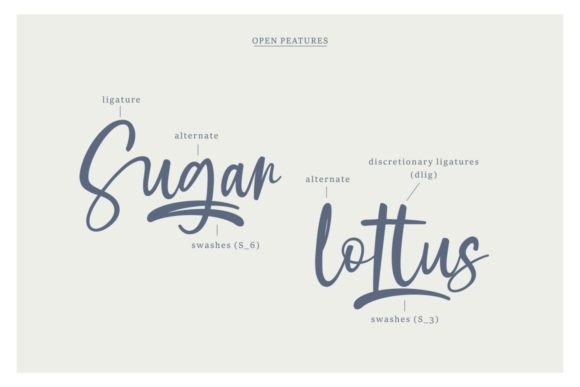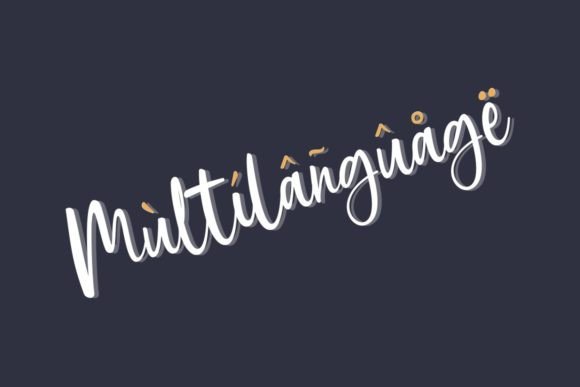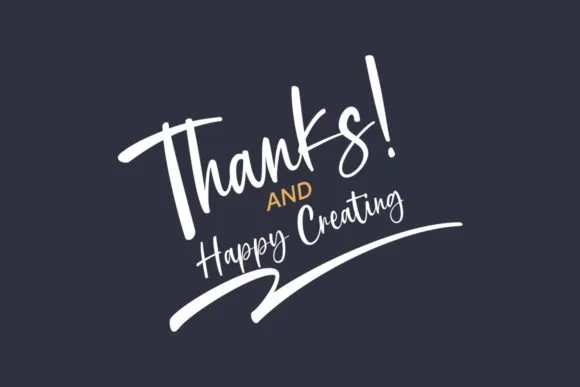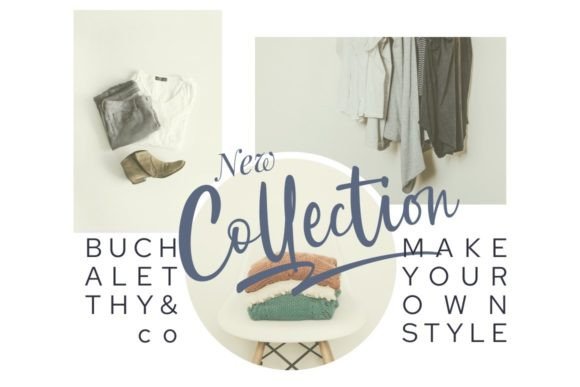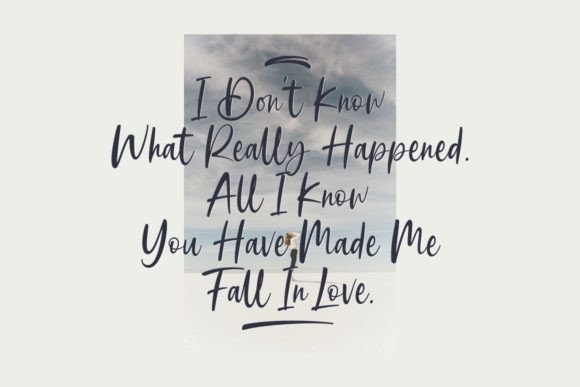
Bitter Sweet Font
About Bitter Sweet Font
**”Bitter Sweet”** is an enchanting handwritten font that holds the potential to elevate your designs into something beautiful and truly unique. This versatile font can be used in a wide array of design projects, offering creative opportunities to enhance your work. Here are some key features and potential uses for the “Bitter Sweet” font:
1. **Enchanting and Unique:** “Bitter Sweet” exudes enchantment and uniqueness, making it a valuable choice when you want to create designs that stand out and capture attention.
2. **Versatile Application:** This font can be applied to a variety of design projects, including logos, branding, packaging, blog graphics, quotes, wedding stationery, art prints, social media posts, and more.
3. **Stylized Quotes:** “Bitter Sweet” can be used to stylize quotes and text, turning them into visually captivating and artistic elements.
4. **Creative Freedom:** The font offers creative freedom, allowing you to explore and experiment with different design ideas and styles.
5. **Access to Glyphs and Swashes:** “Bitter Sweet” is PUA encoded, which means you can easily access all of its glyphs and swashes, giving you greater flexibility in design customization.
In essence, **”Bitter Sweet”** is a font that can infuse a sense of enchantment and uniqueness into your creative projects. Its versatility and creative potential make it a valuable resource for designers and individuals seeking to create designs that are not only beautiful but also one-of-a-kind.